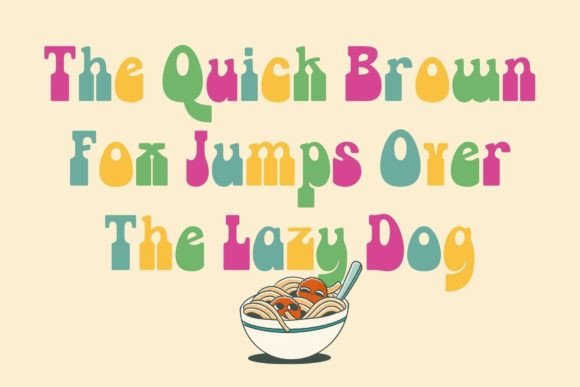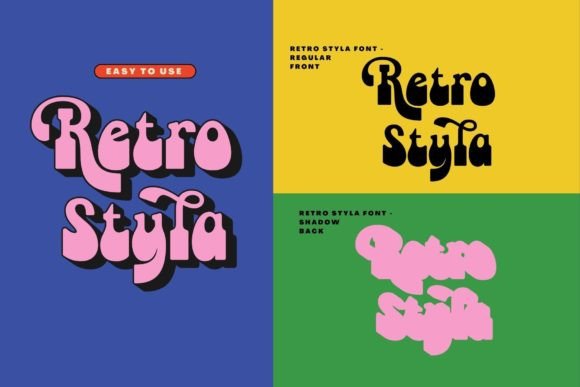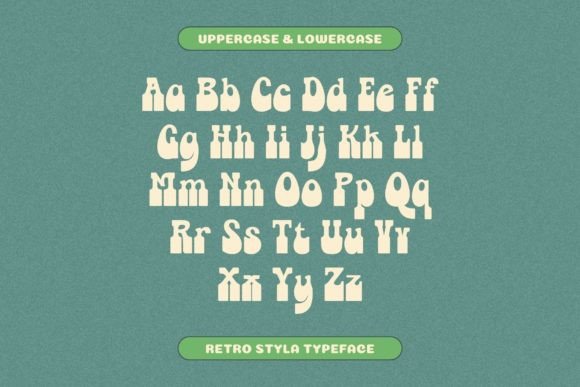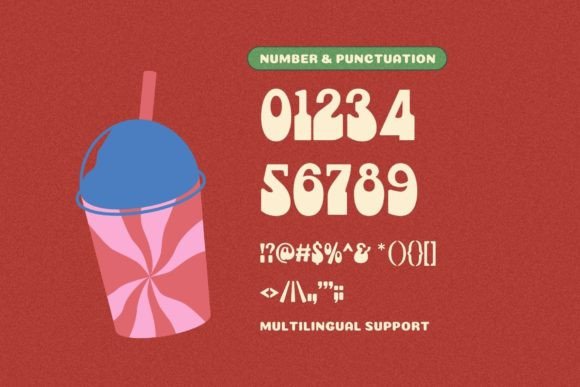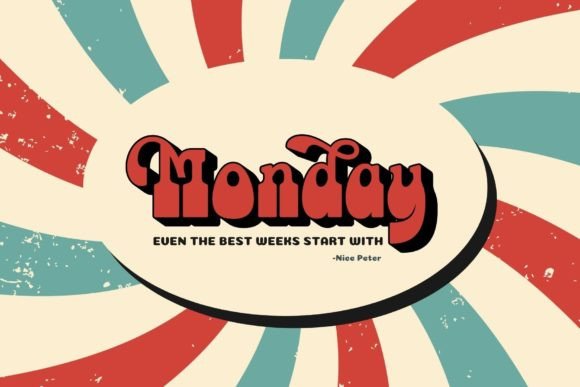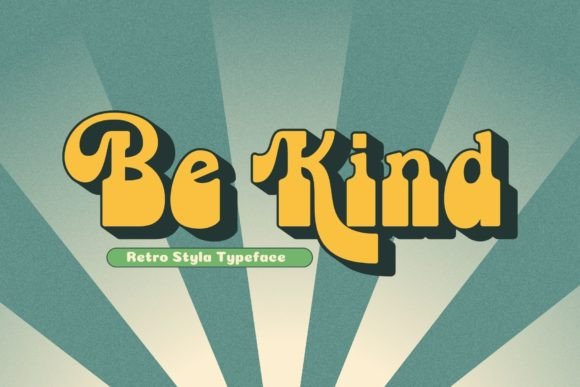
Introduction to Retro Styla Font
Retro Styla is a cool and fun display font inspired by the ’70s design era.
This typeface offers beautiful typographic harmony for a diversity of design projects, including logos & branding, social media posts, advertisements & product designs .
Key Features of Retro Styla Font